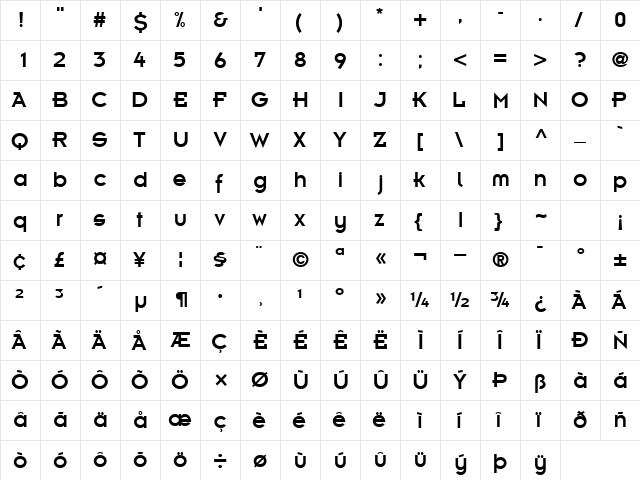
KernelAlternateSSK Regular Font Preview
KernelAlternateSSK Regular
KernelAlternateSSK Regular Font Details
Design Context for KernelAlternateSSK Typeface
KernelAlternateSSK takes a measured approach to typography — its balanced proportions and neutral character make it a reliable workhorse for both digital and print work.
Pro Tip: Use KernelAlternateSSK in both headline and body roles to test its range before committing to a single application.